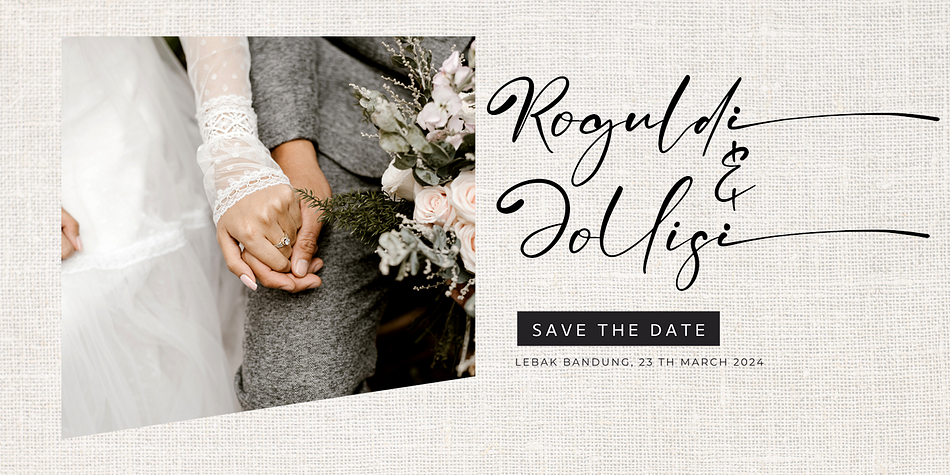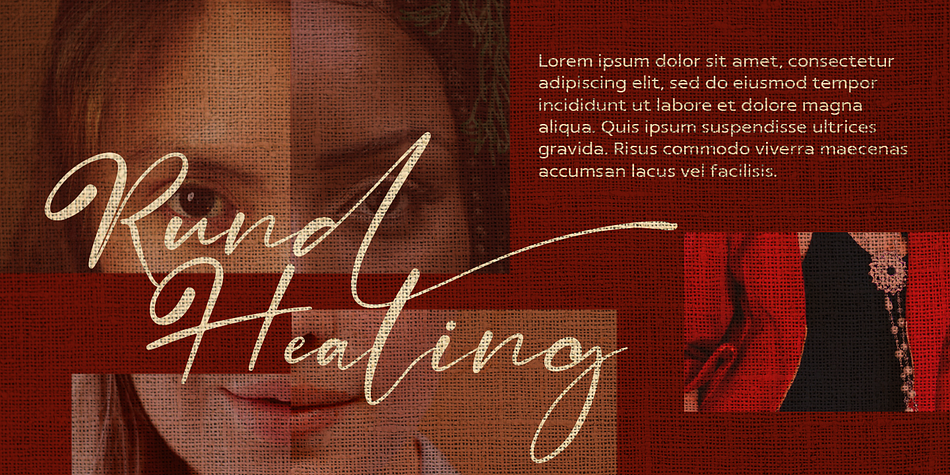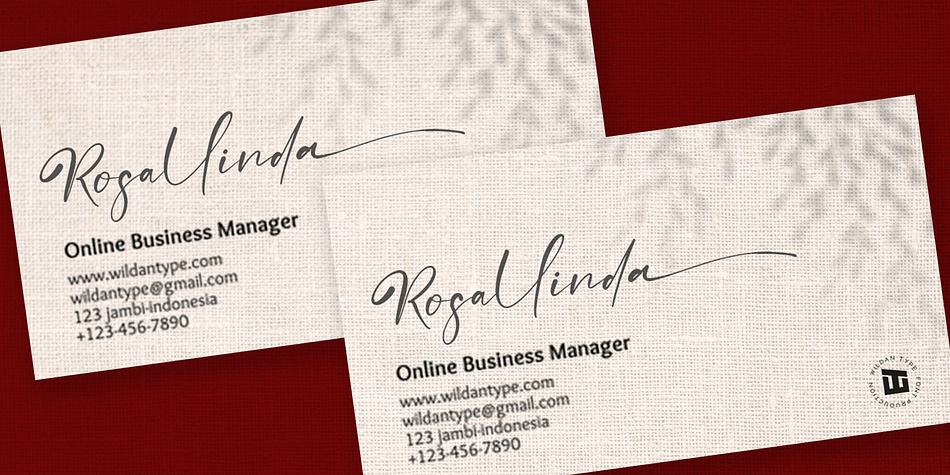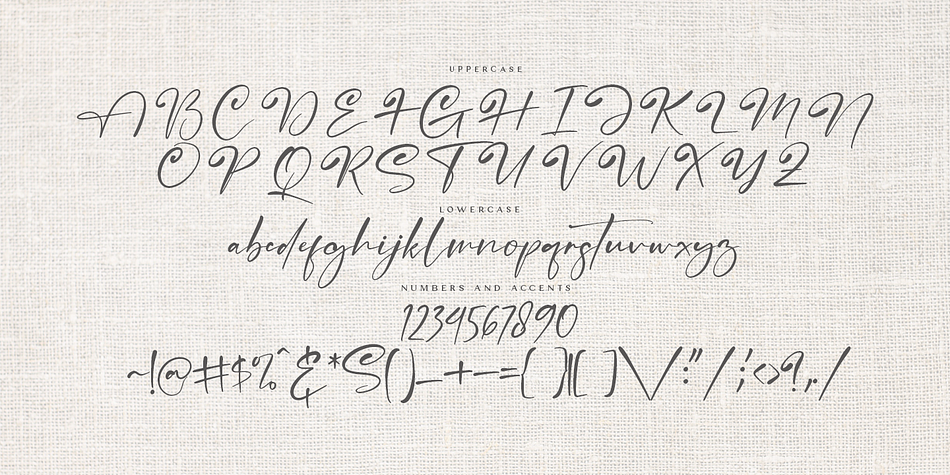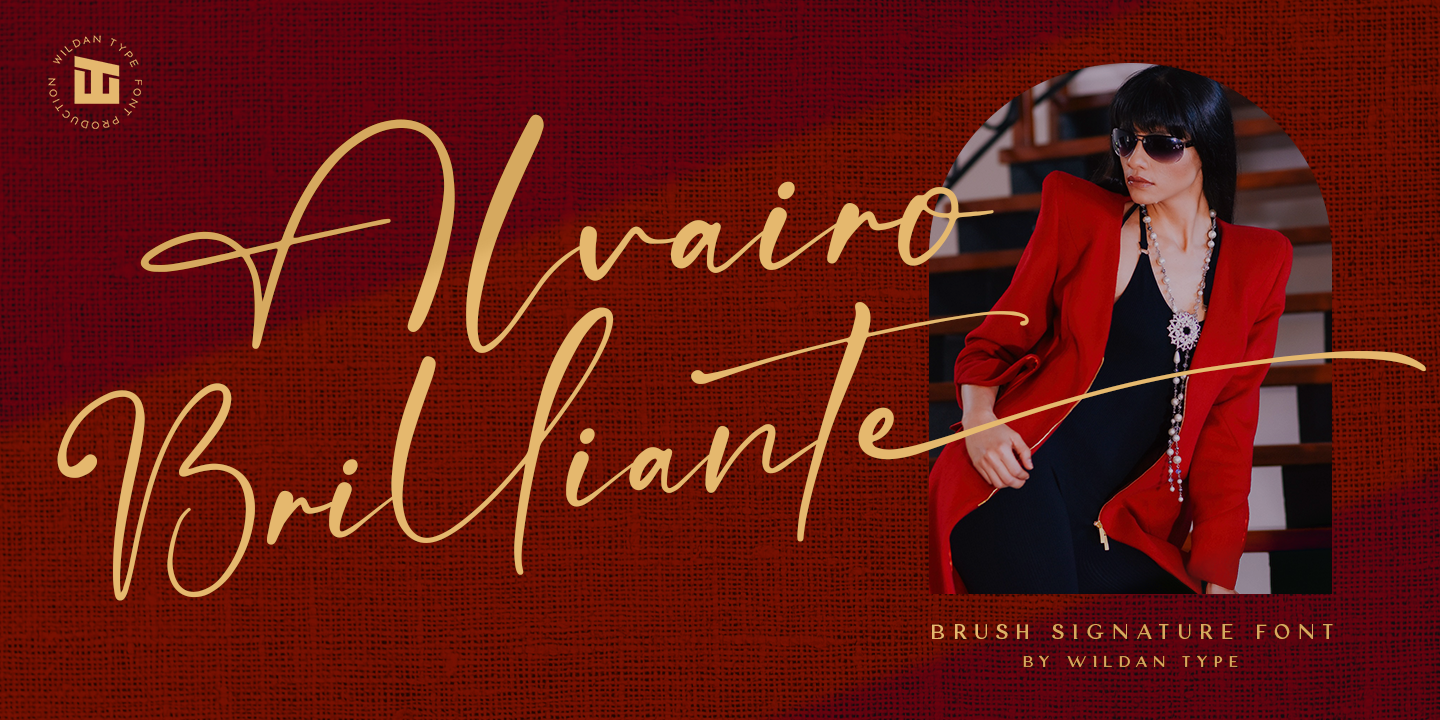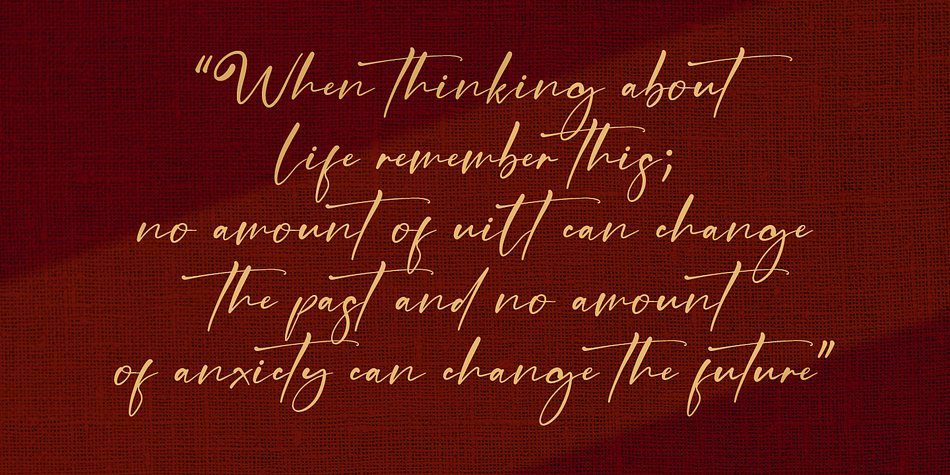
Alvairo Brilliante
Alvairo Brilliante is a script font family published by Wildan Type.
Alvairo Brilliante is a delicate, elegant and flowing handwritten font. It has beautiful and well balanced characters and as a result, it matches a wide pool of designs. Add it to your most creative ideas and notice how it makes them come alive!